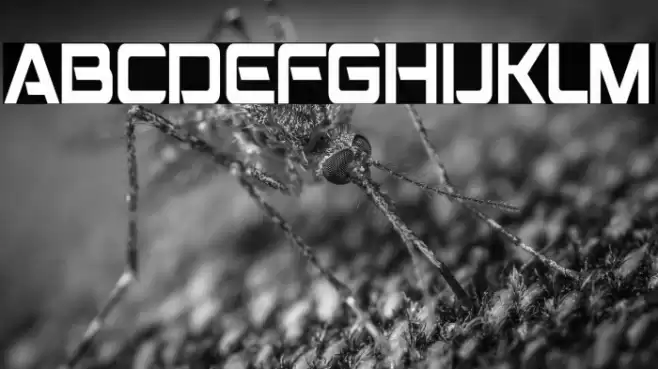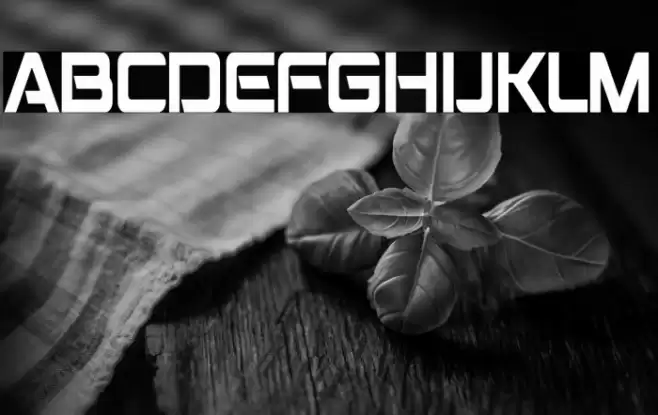
Montalban Condensed Font
Montalban Condensed Description
This font features a bold, geometric design with a distinctly modern aesthetic. The characters are condensed, giving them a compact appearance that maximizes space efficiency. The uppercase and lowercase letters maintain a consistent height, contributing to a uniform look. The strokes are thick and even, providing a strong visual impact. The angular shapes and sharp edges lend a futuristic feel, while the rounded corners soften the overall appearance. This font is highly legible, making it suitable for various applications where clarity is essential.
A bold, geometric, and condensed font with a modern and futuristic style from Uncategorized fonts.
- Font: Montalban Condensed
- Proposed Projects: Ideal for branding, advertising, posters, and any project requiring a modern and impactful typeface.